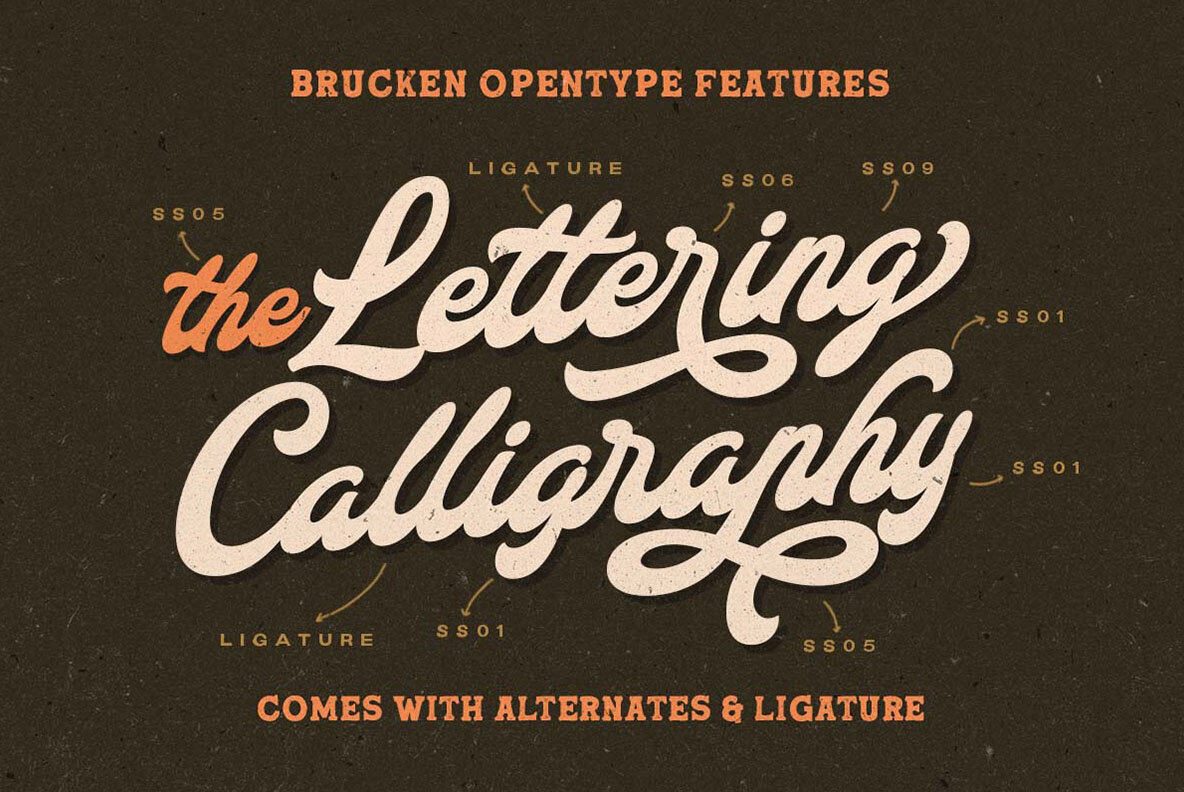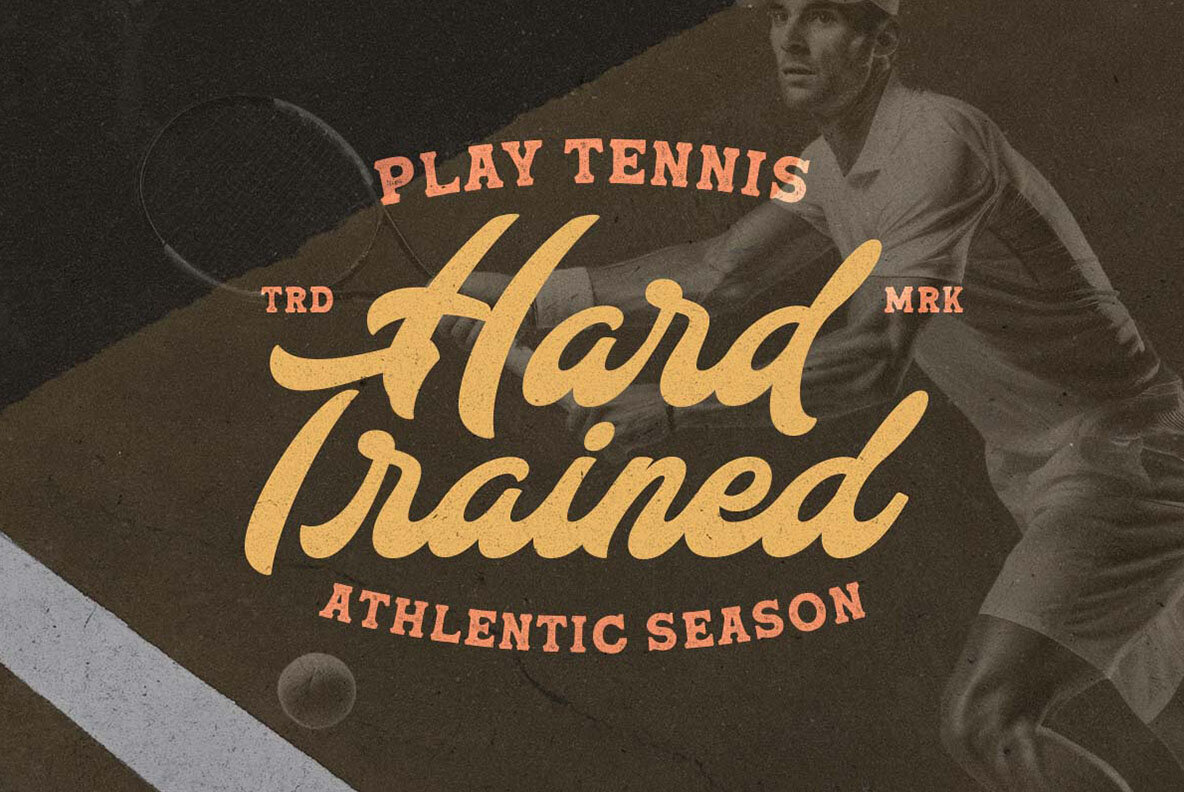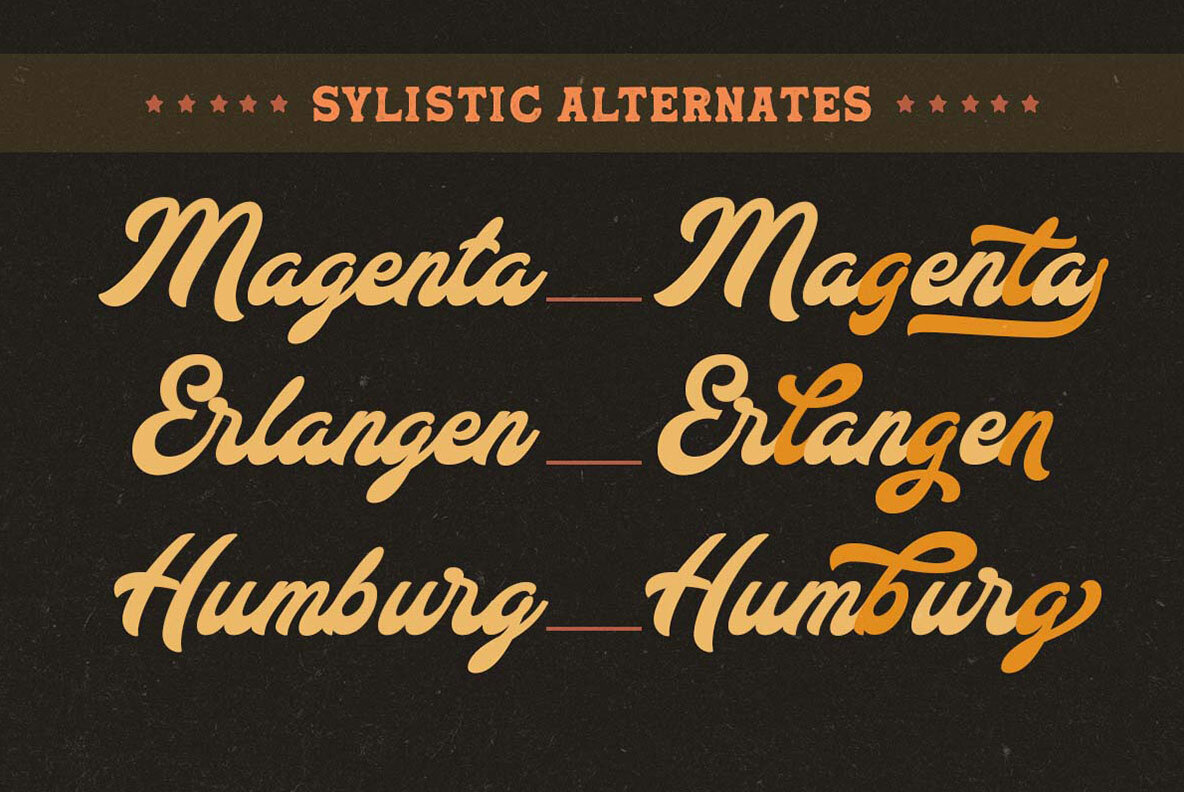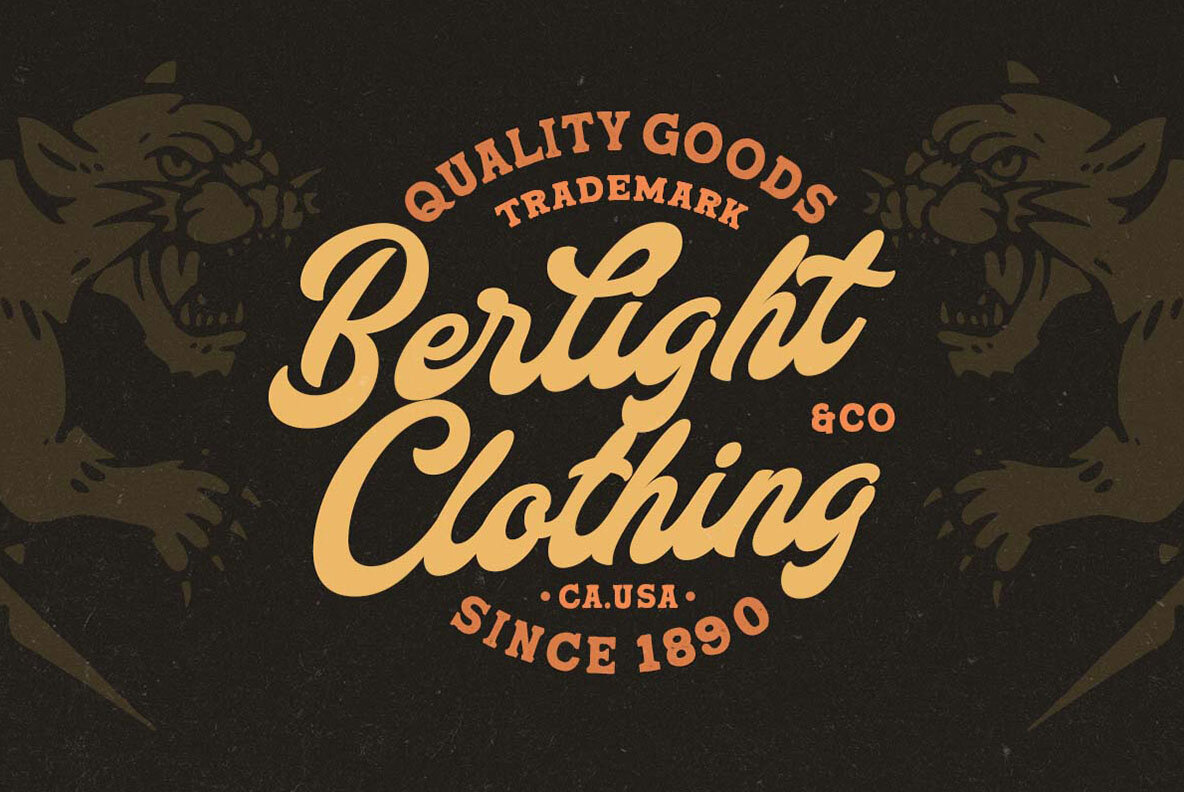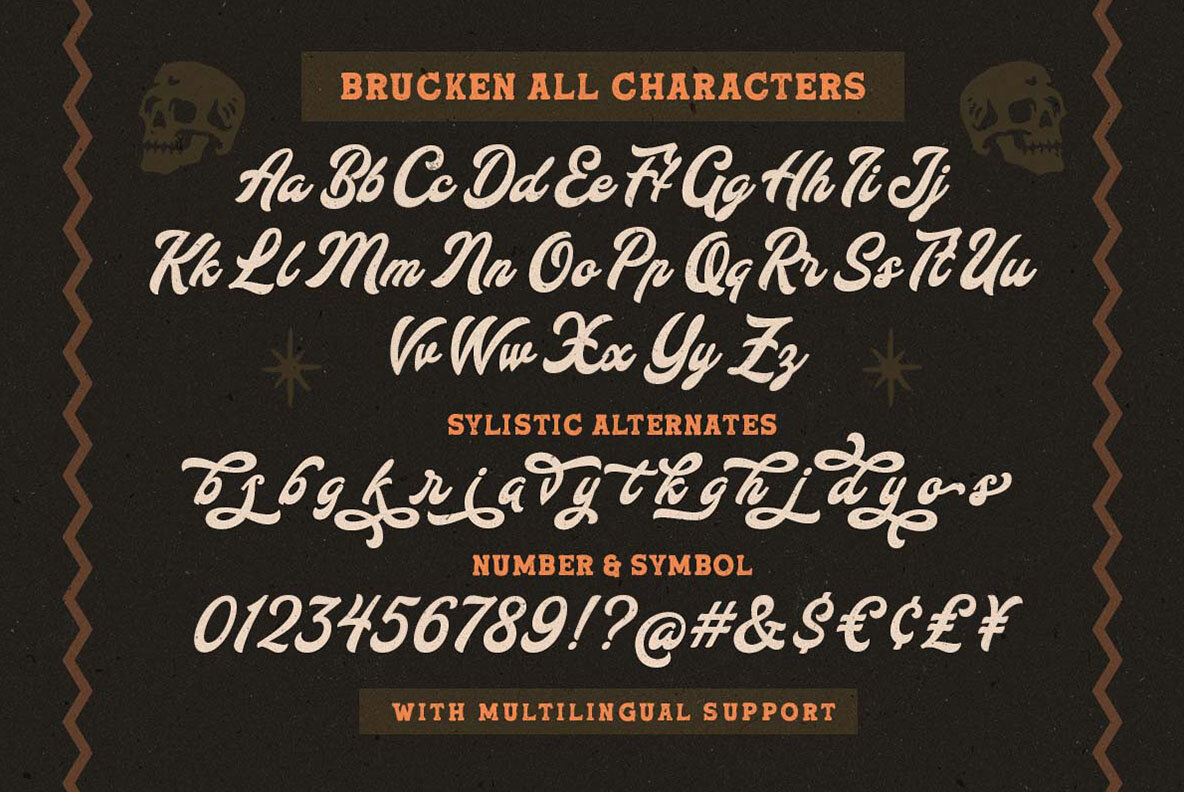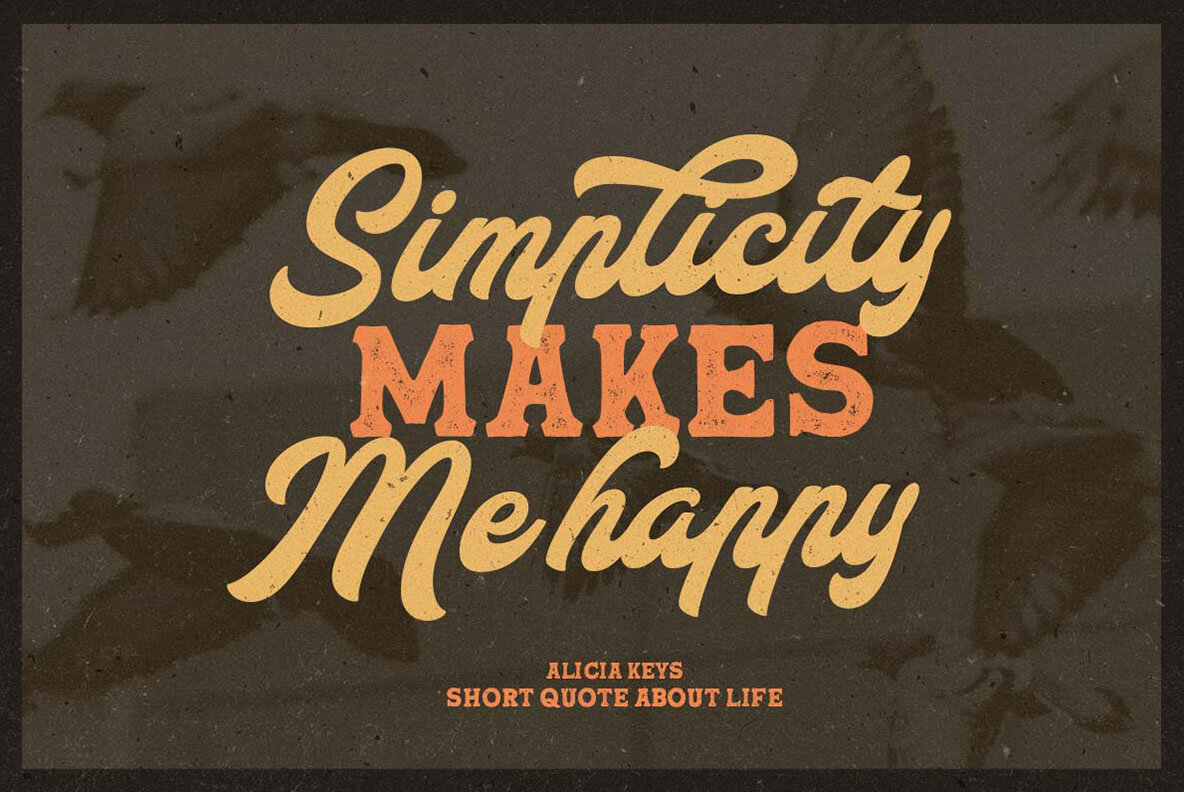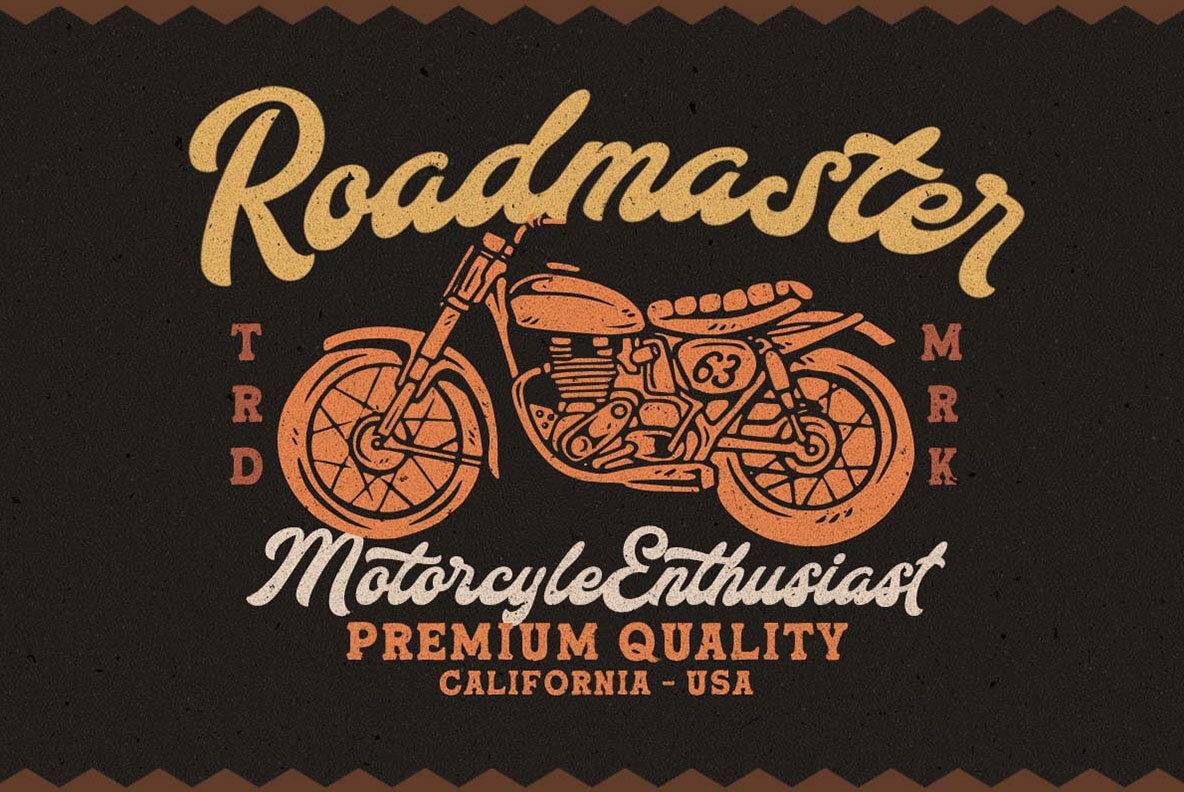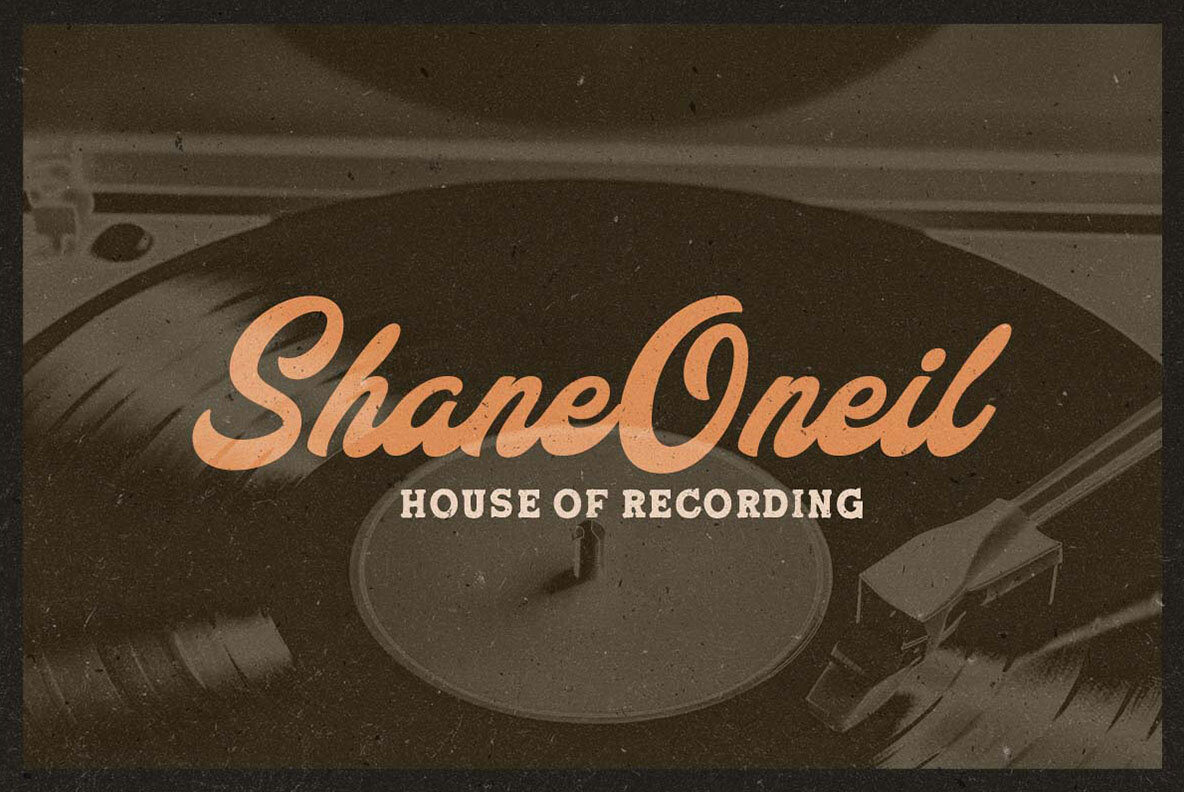
The Brucken Font
Brucken Regular
The Brucken is a retro bold script with swash makes this typeface looks standout to be used for your retro theme project. This font perfectly made to be applied especially in logo, and the other various formal forms such as invitations, labels, logos, magazines, books, greeting / wedding cards, packaging, fashion, make up, stationery, novels, labels or any type of advertising purpose. Features: We highly recommend using a program that supports OpenType features and Glyphs panels like many of Adobe apps and Corel Draw, so you can see and access all Glyph variations.